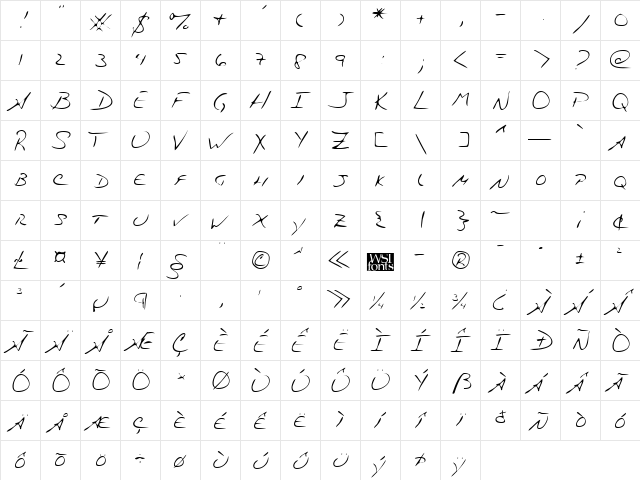
ZacksHand Regular Font Preview
ZacksHand Regular
Design Context for ZacksHand Typeface
ZacksHand flows with the natural rhythm of handwritten lettering, making it ideal for designs that call for warmth and personal expression.
Font Pairing: Combine ZacksHand with a simple geometric sans for maximum contrast — the tension between flowing curves and clean structure is a classic typographic pairing.
Pro Tip: Pair ZacksHand with a clean sans-serif for supporting text. The contrast between fluid script and geometric structure creates an elegant typographic hierarchy.